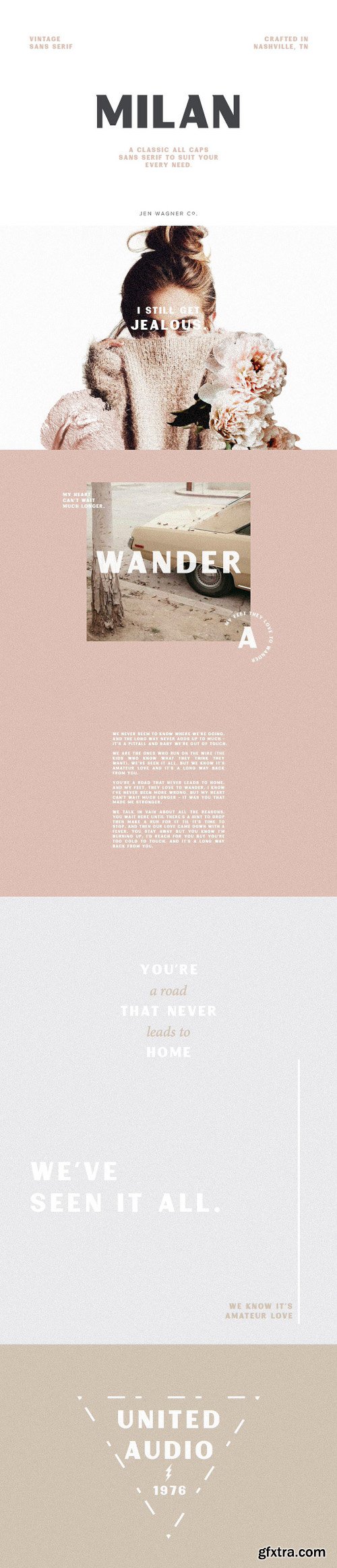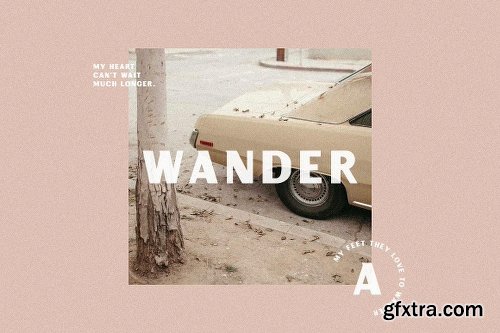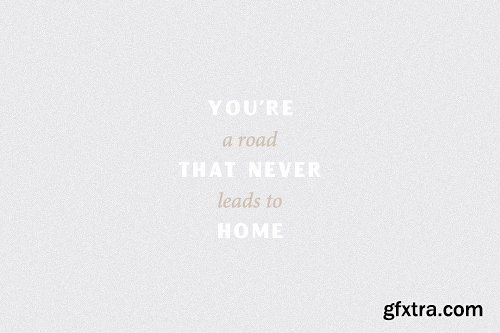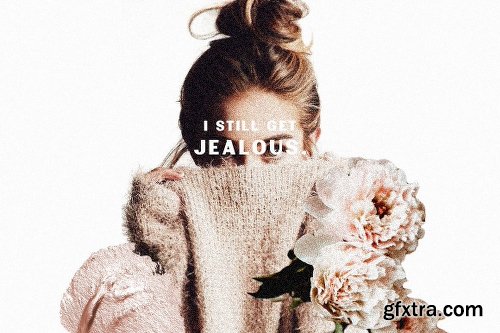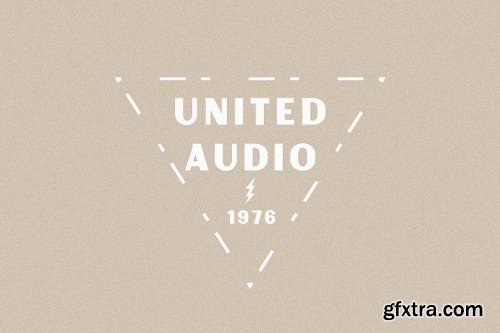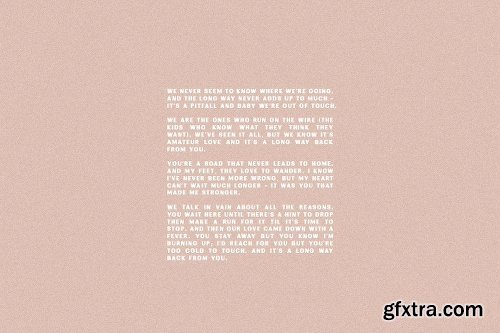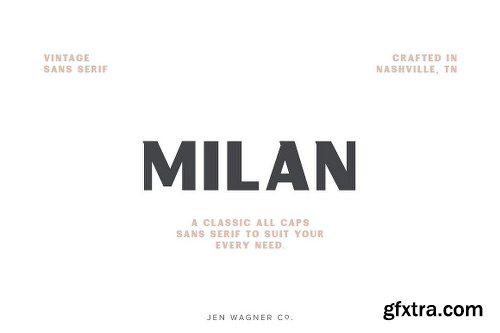
CreativeMarket Milan | A Classic Sans Serif 2028805
Milan is a gorgeous and classic all-caps sans serif that looks stunning in just about every context. Use it for logos, print, collage, body text, and more! It looks absolutely beautiful when paired with Minion Pro Italic (see image 3) and adds a really cool modern-meets-vintage look to any piece.